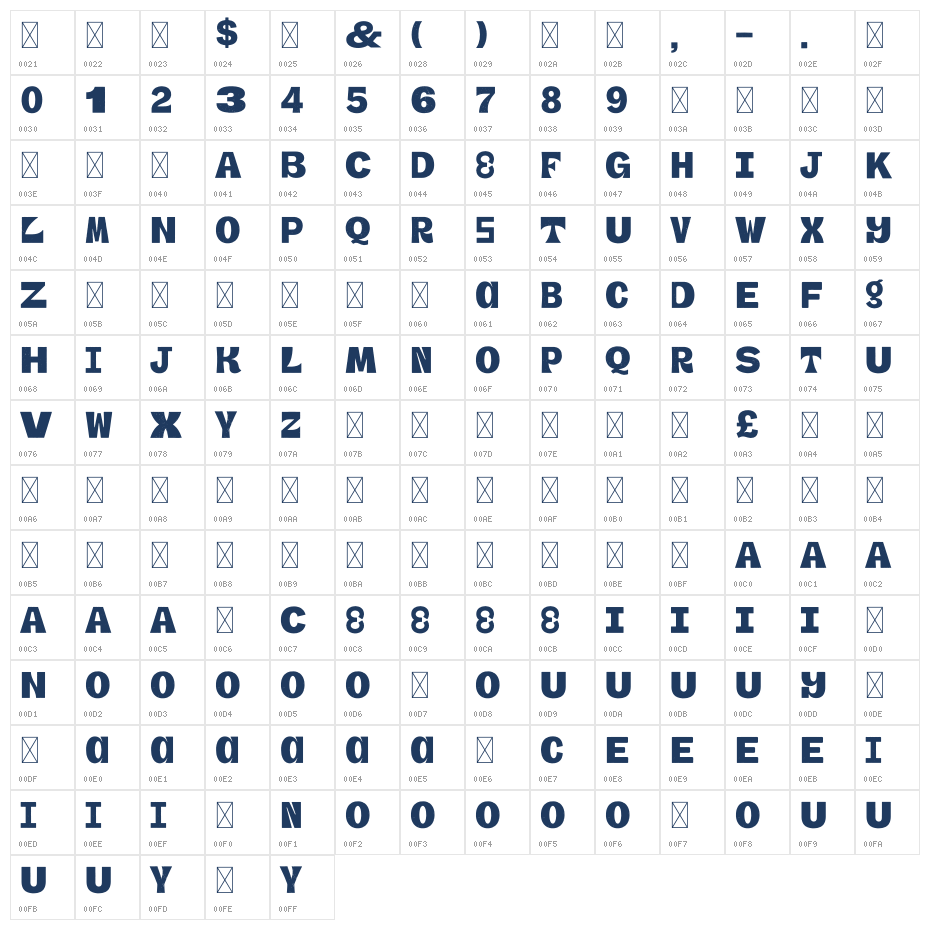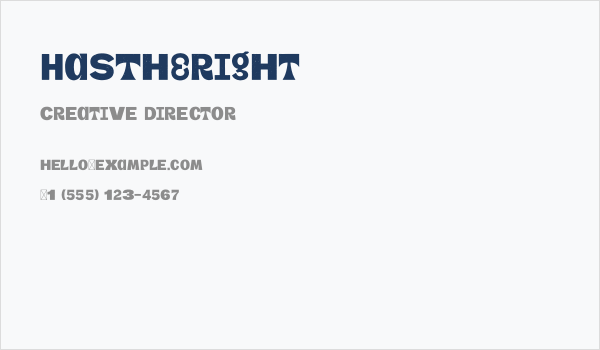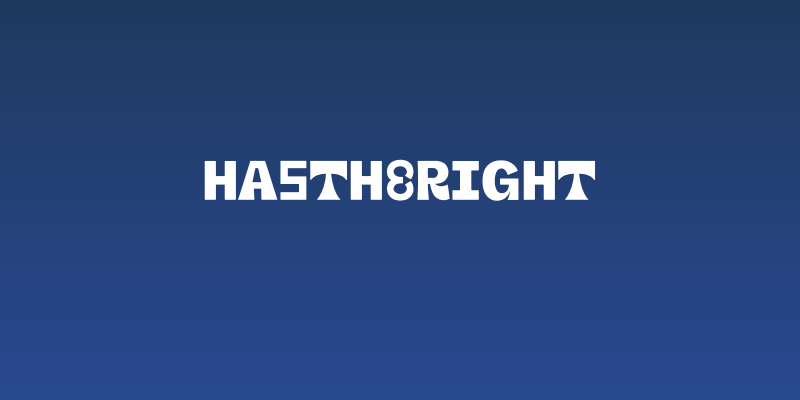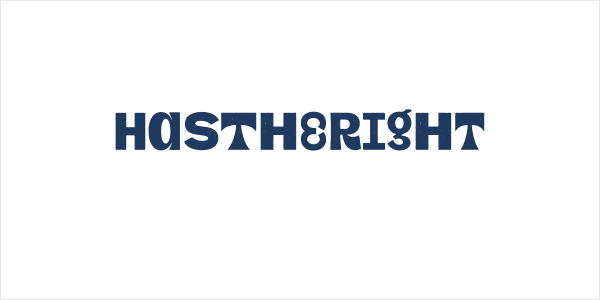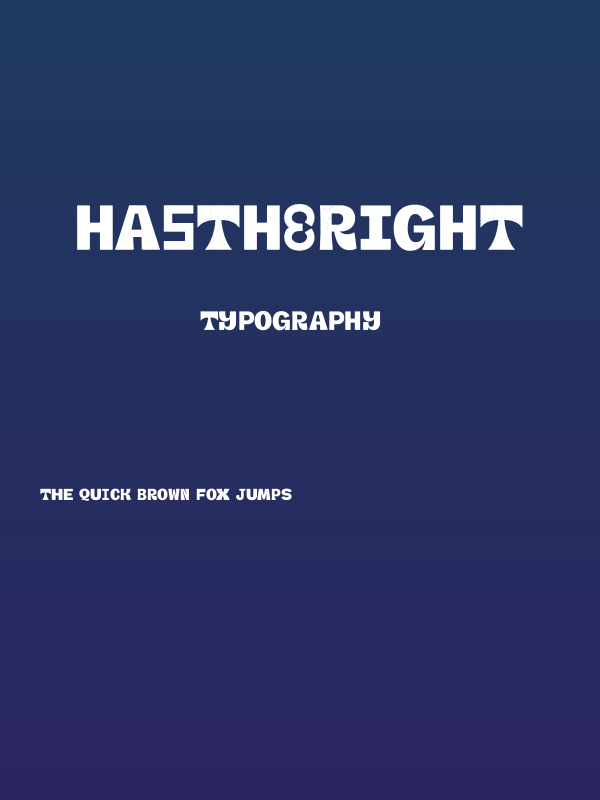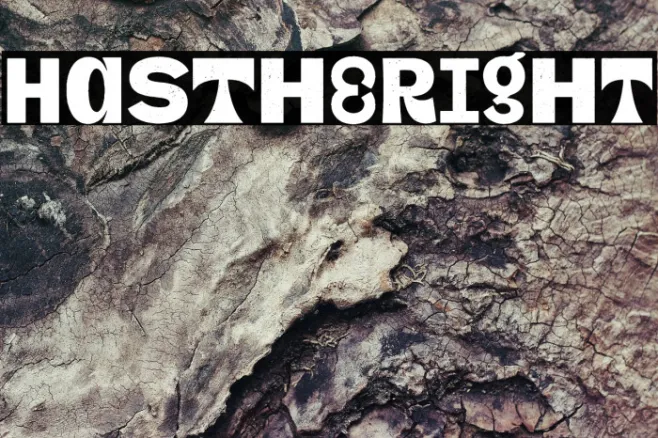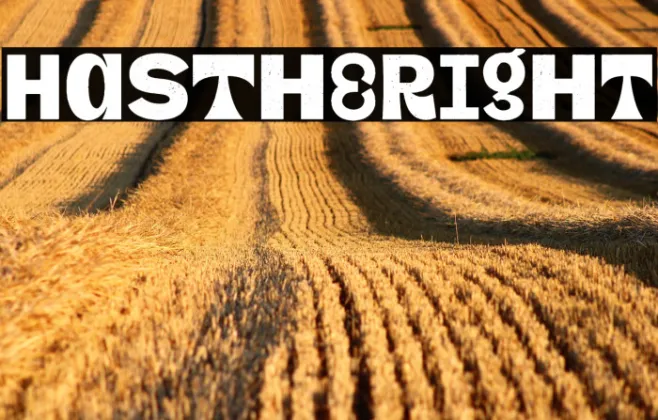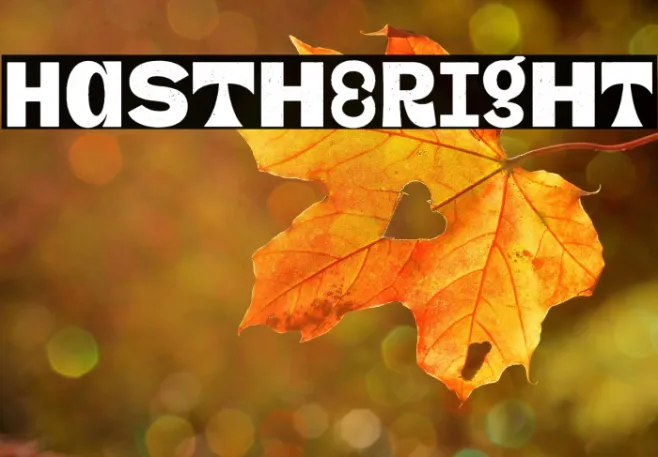
HasThERight Font
HasThERight Description
Bold, blocky, decorative display font with a playful and chunky style, featuring unique cutouts and exaggerated shapes.
| Overall Style | Playful, Retro, Bold |
| Use Case | Headlines, Posters, Logos |